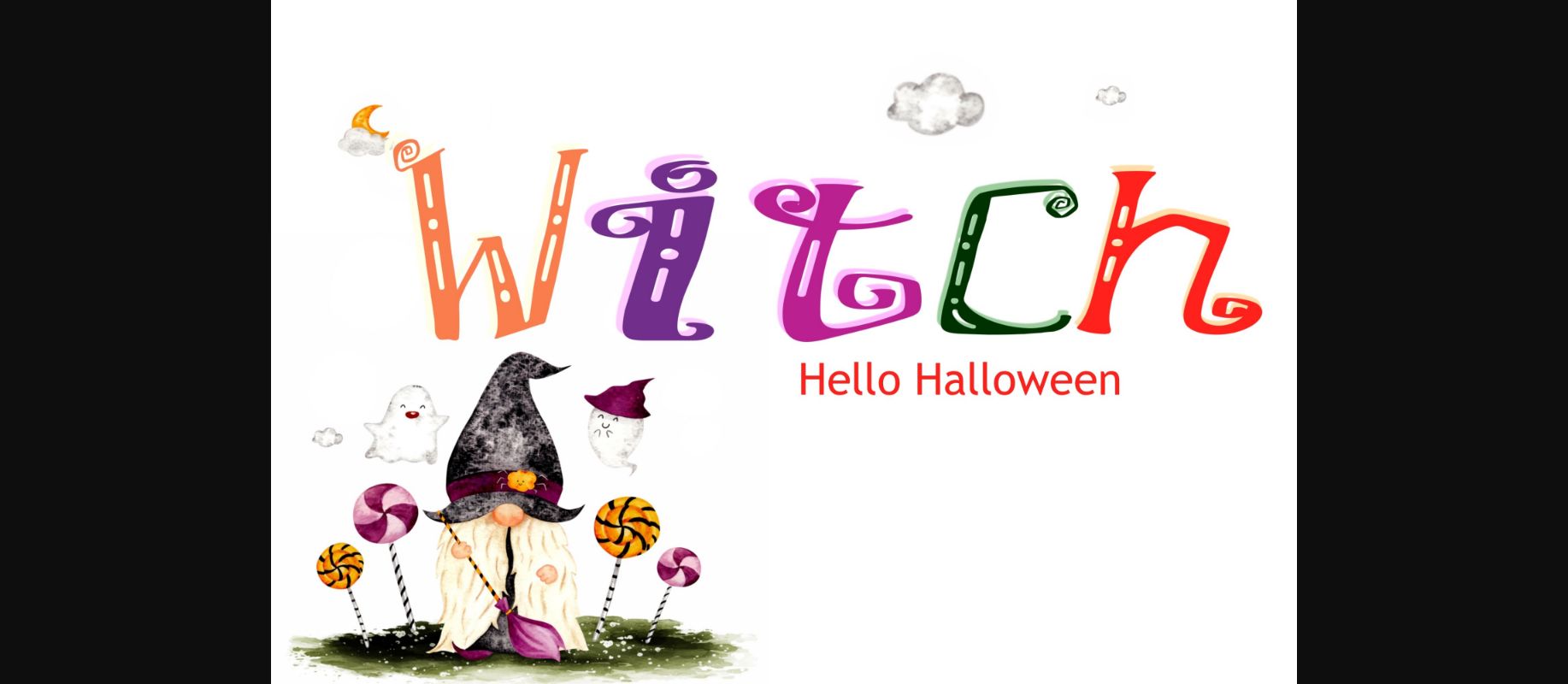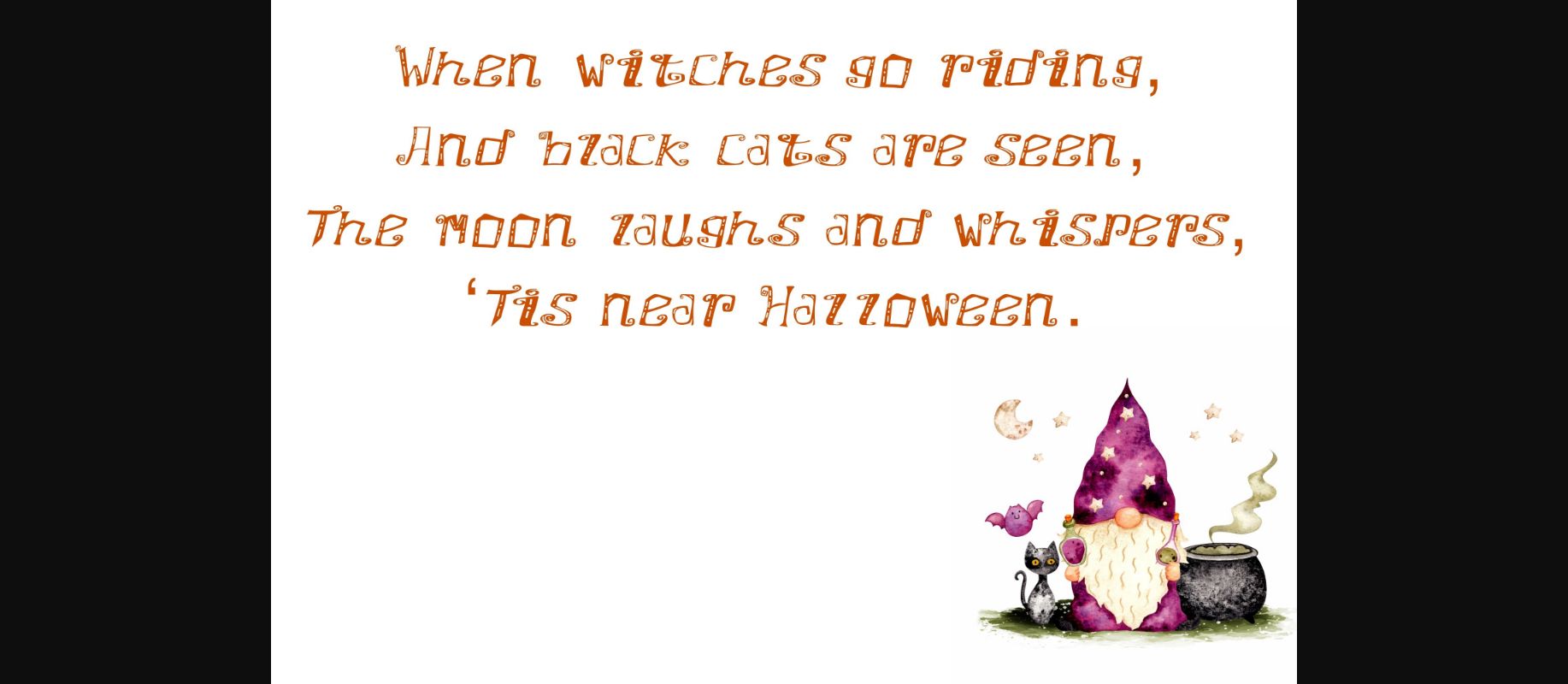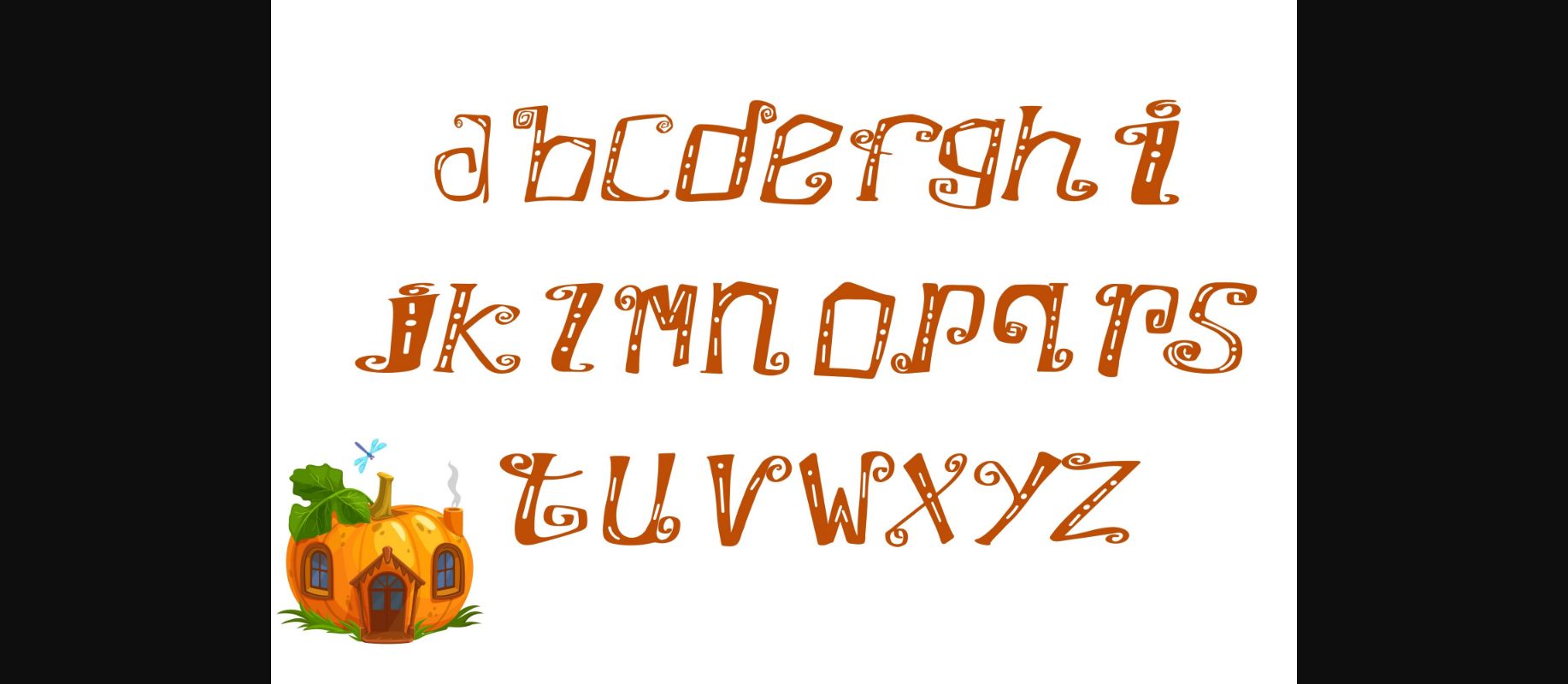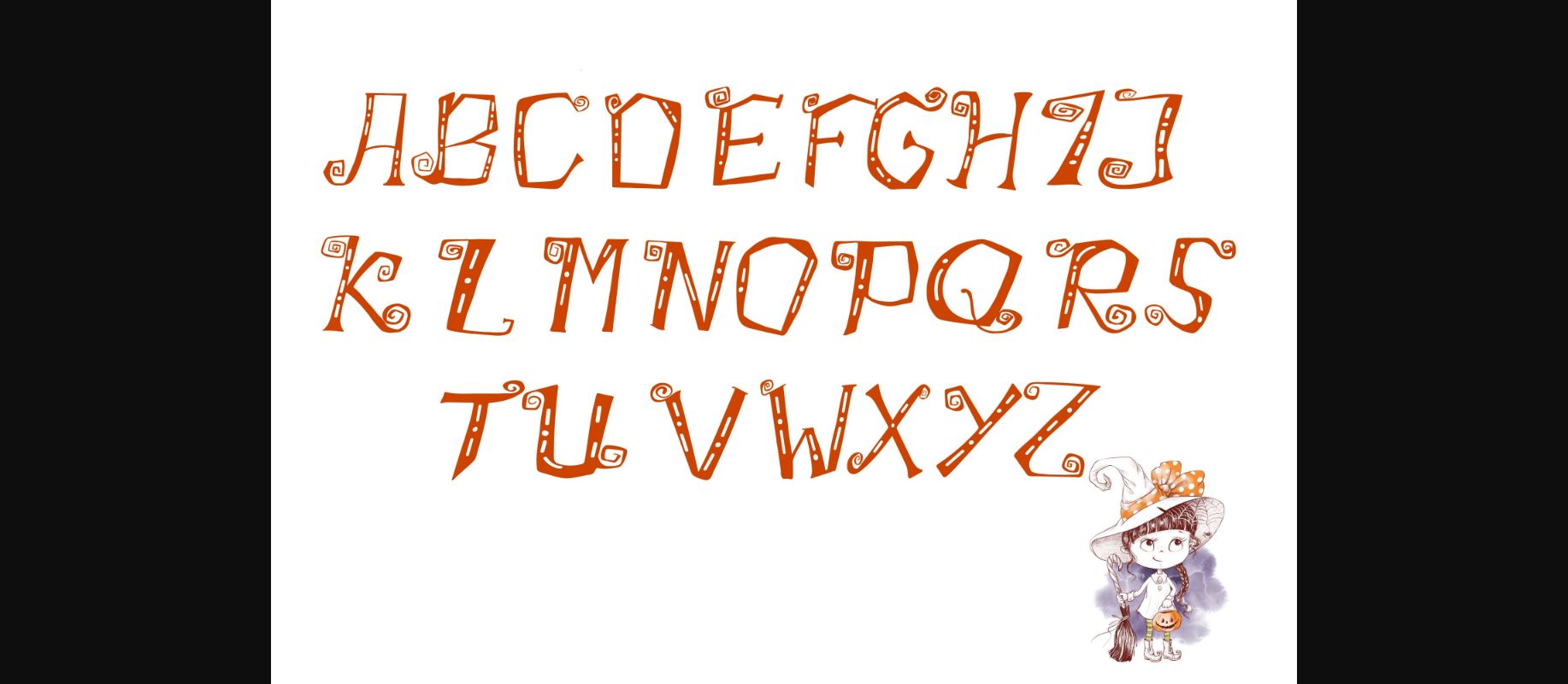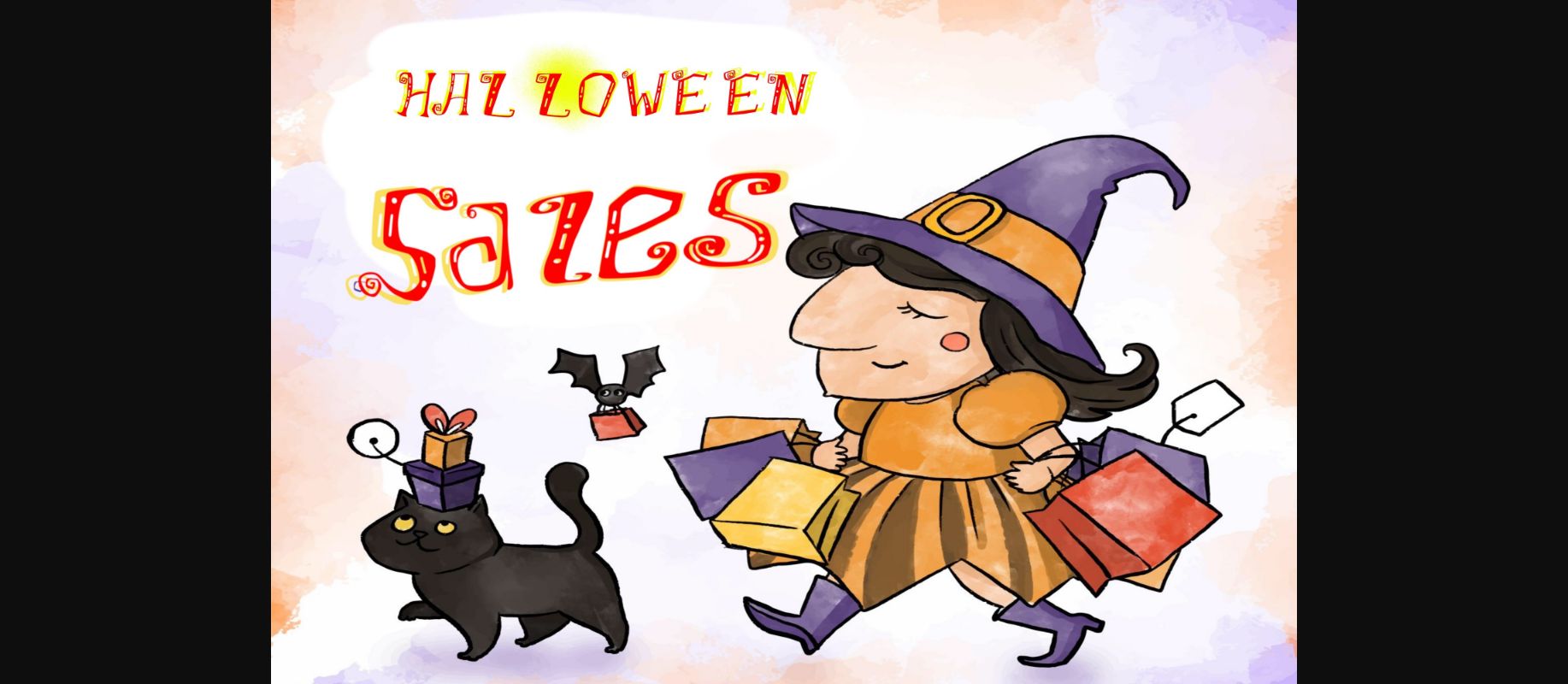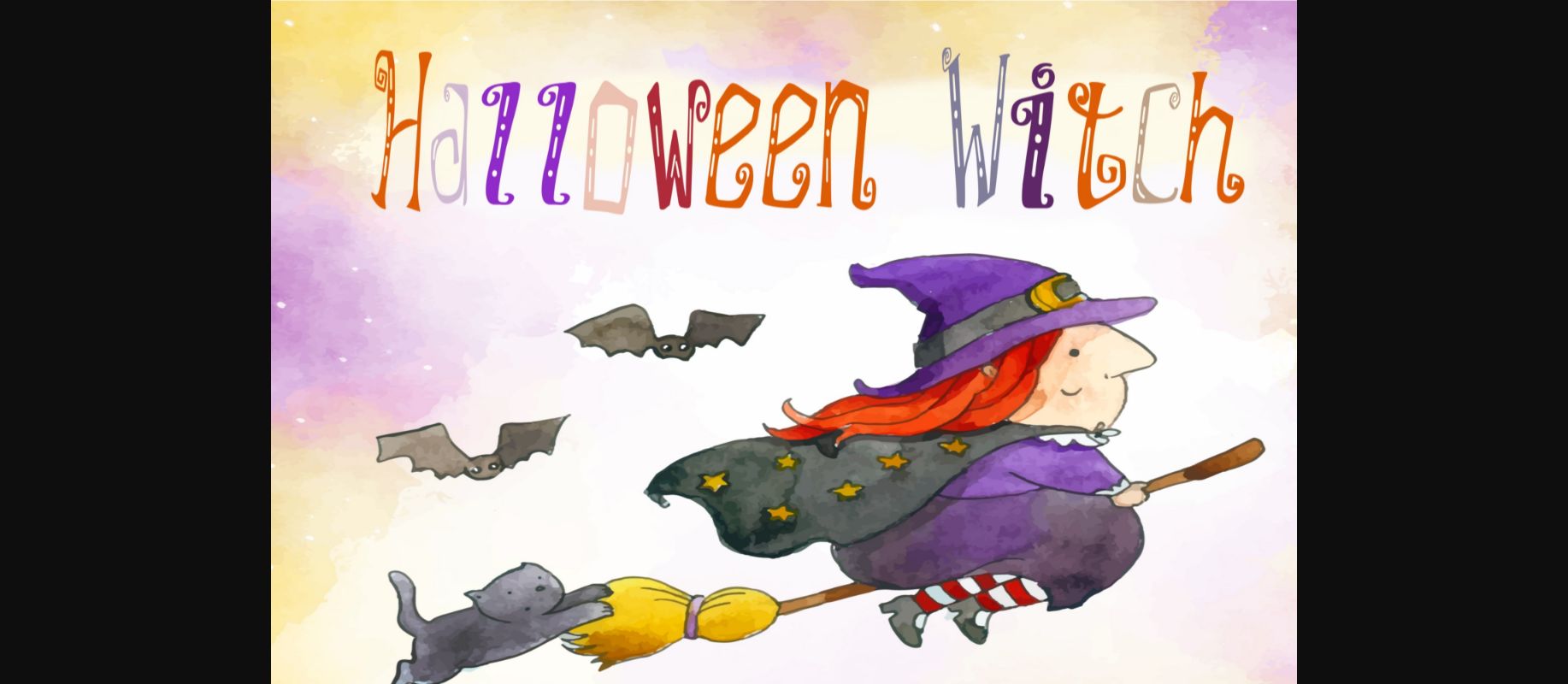
HomeDecorative FontsWitch Font Decorative Fonts Witch Font FacebookXPinterestWhatsApp 1 of 8 ... Witch Font Poster 2... Witch Font Poster 3... Witch Font Poster 4... Witch Font Poster 5... Witch Font Poster 6... Witch Font Poster 7... Witch Font Poster 8... About Witch Font Witch is a fun, joyful and cool decorative font. It embodies playfulness and authenticity and is the perfect choice for any children activity or school project. DOWNLOAD NOW People also explored Honey Cake Font Schreibweise Staying Font Flamante Serif -8 fonts- Font Bridgers Brush Font Malmseen Font Hellotropica Font Sinister Font Roundtable Font 304 0 TagsWitchWitch Font Previous articleHalloween Skull FontNext articleAlways Creepy Font LEAVE A REPLY Cancel reply Comment: Please enter your comment! Name:* Please enter your name here Email:* You have entered an incorrect email address! Please enter your email address here Website: Save my name, email, and website in this browser for the next time I comment. Personal Use Free Vanity Personal Use Free Read more about this font Welcome Creative Personal Use Free Read more about this font Denisha Personal Use Free Read more about this font Kaysan Personal Use Free Read more about this font BLOG Free Fonts Risk: Why Free Fonts Can Be Dangerous for Designers Free Fonts Risk: Why Free Fonts Can Be Dangerous for Designers Using free fonts is a common practice in web and graphic design. However, the... Where to Buy American Fonts Online in 2024 Using Fonts in Digital Marketing: Tips to Strengthen Your Brand Identity Transform Your Website: Elevate Your Typography with 7 Best Web Font Generators